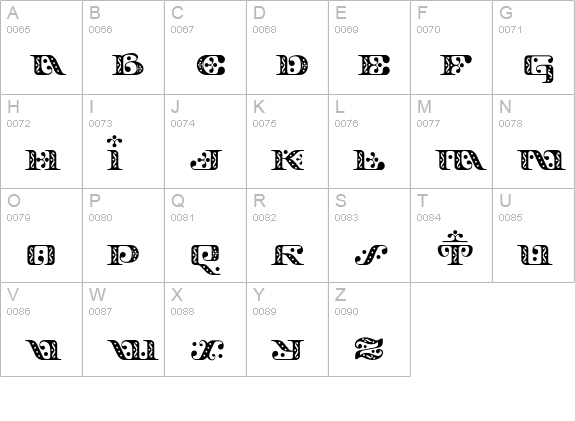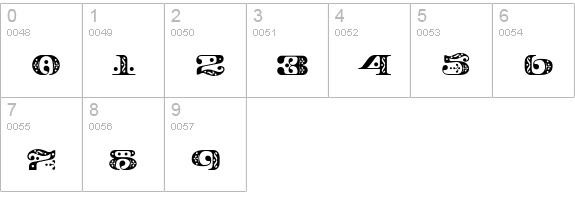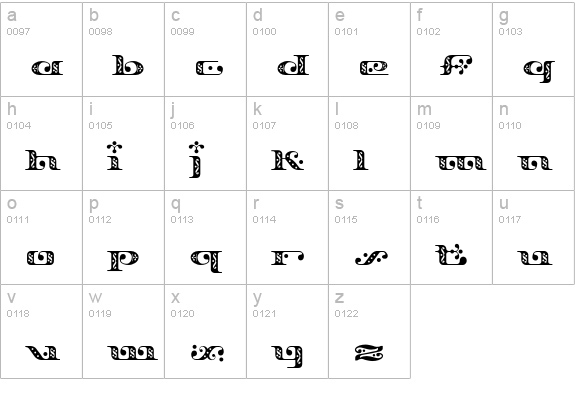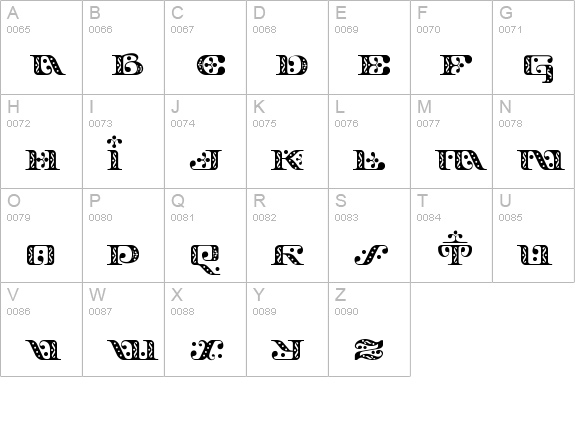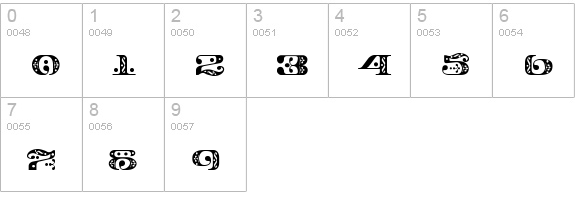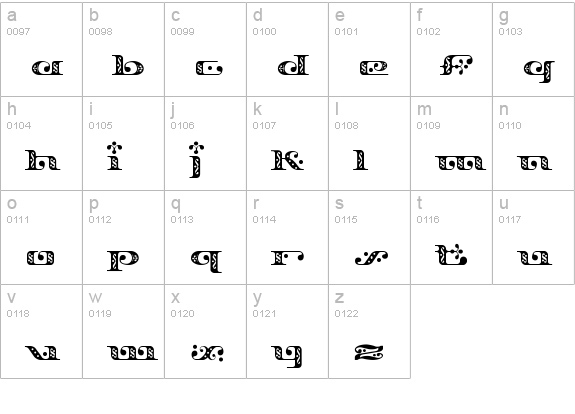
Introducing Django-Ornate font, a breathtaking typeface that exudes elegance and sophistication. With its ornate detailing and exquisite flourishes, this font is perfect for adding a touch of luxury to your designs. Whether you're working on wedding invitations, branding materials, or editorial layouts, Django-Ornate font will elevate your projects to new heights. The best part? Django-Ornate font is completely free to download at FontsMarket.com. Yes, you read that right - you can add this stunning font to your collection without spending a dime. Don't miss out on the opportunity to enhance your designs with the timeless beauty of Django-Ornate font. Download it today and let your creativity shine!